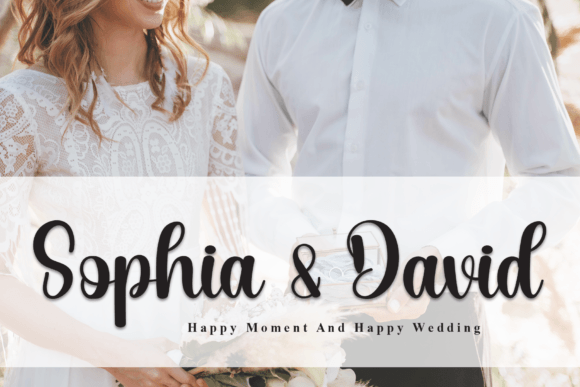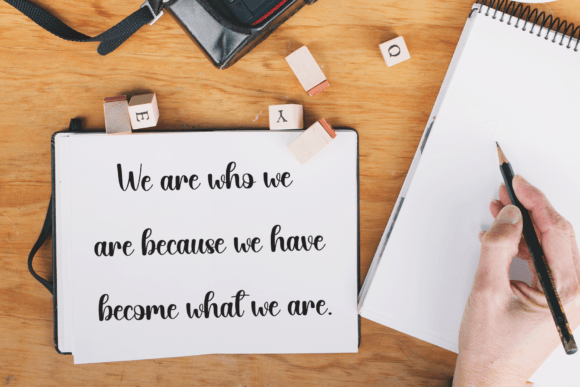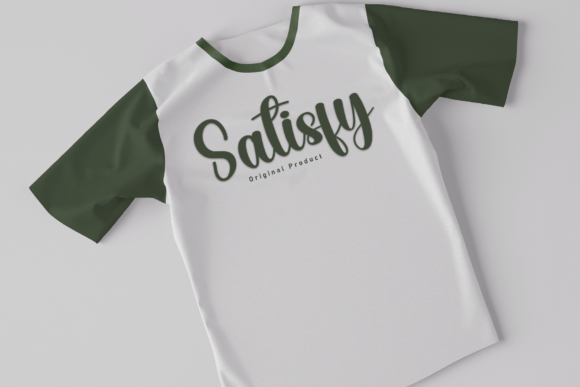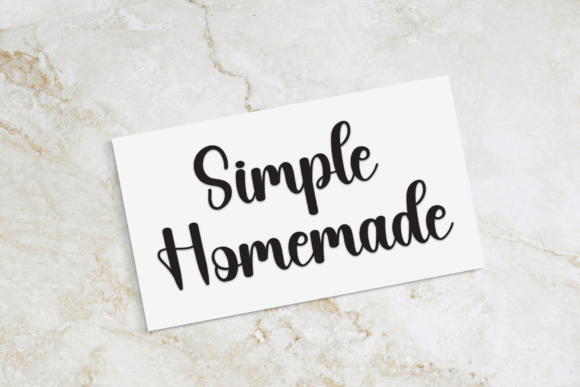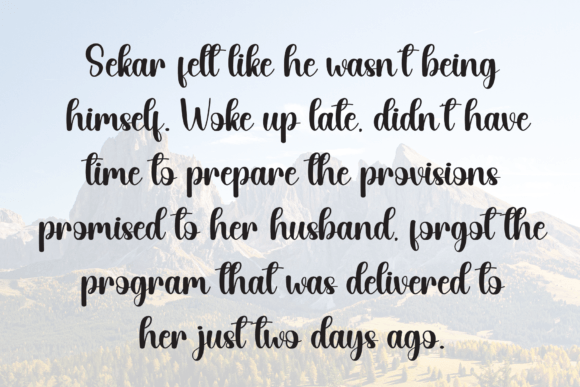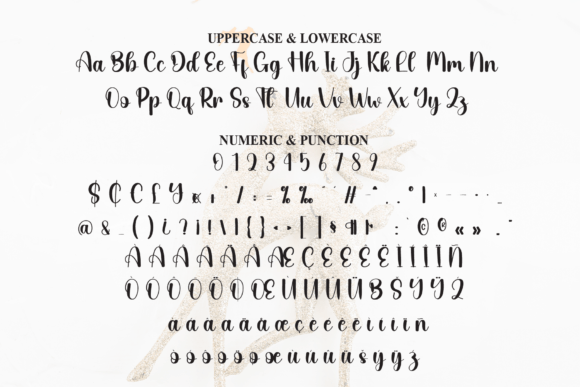
Introduction to Reinder Font
As a designer, there’s nothing quite like the thrill of bringing a creative project to life. You’re brainstorming ideas, sketching out concepts, and selecting the perfect design elements to make your vision a reality. But have you ever felt like something’s missing – a spark of personality that sets your design apart from the rest? That’s where Reinder Font comes in.
With its unique, handwritten style and playful flair, Reinder Font is the perfect addition to any design composition. Whether you’re crafting heartfelt wedding invitations, vibrant greeting cards, or simply looking to add a dash of joy to your text, this font is sure to elevate your work to new heights of creativity. And the best part? It’s a high-quality design resource that’s available for free download, making it a valuable asset for designers of all levels.
Key Features of Reinder Font
- Unique characteristics include a clean, modern design and precise typography.
Honest Review: Reinder Font
As a designer, I’m always on the lookout for high-quality design resources to elevate my creative projects. Recently, I stumbled upon the Reinder Font, and I’m excited to share my honest review with you.
- ✨ Unique aesthetic: The Reinder Font has a distinctive, hand-drawn feel that adds a touch of personality to any design.
- ✨ High quality: The font is crisp and clear, making it perfect for use in a variety of design contexts.
- ⚠️ Limited language support: Unfortunately, the Reinder Font only includes a limited set of languages, which may be a drawback for designers working on multilingual projects.
Overall, I’m impressed with the Reinder Font, and I think it’s a great addition to any designer’s toolkit. While it has some limitations, its unique aesthetic and high quality make it a valuable resource for creative projects. If you’re looking for a free design resource that can add some personality to your work, the Reinder Font is definitely worth checking out.
Tips for Getting the Most Out of Reinder Font
To maximize your use of the Reinder Font, experiment with different font sizes, colors, and combinations to achieve the desired look for your project.
The Reinder Font is suitable for a wide range of creative projects, including:
- Infographic creation
- Brochure and flyer design
- Website design and development